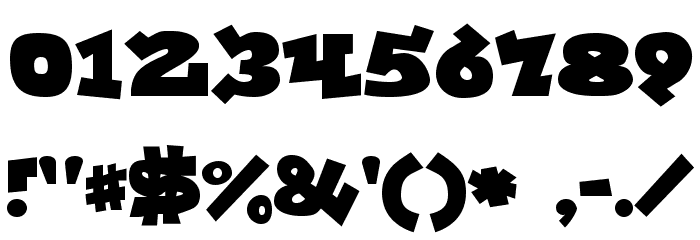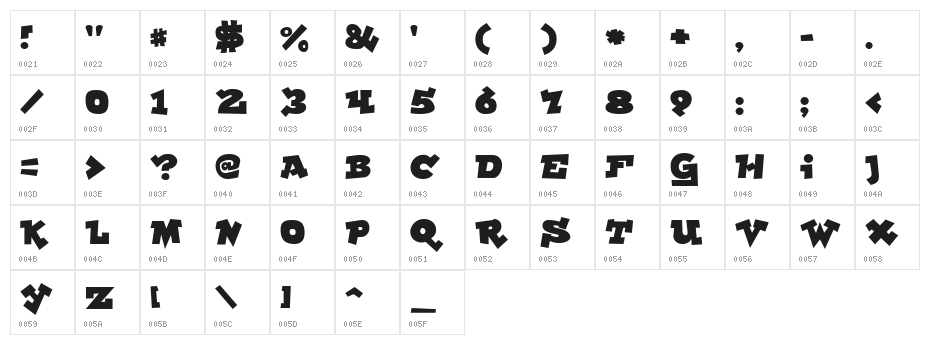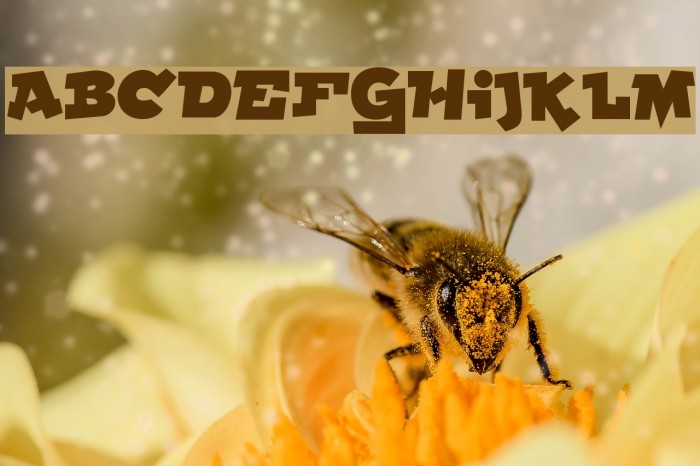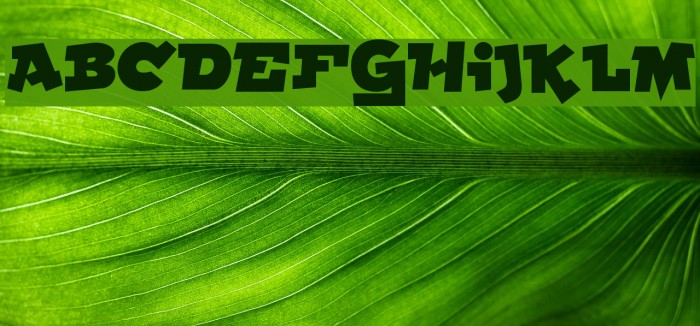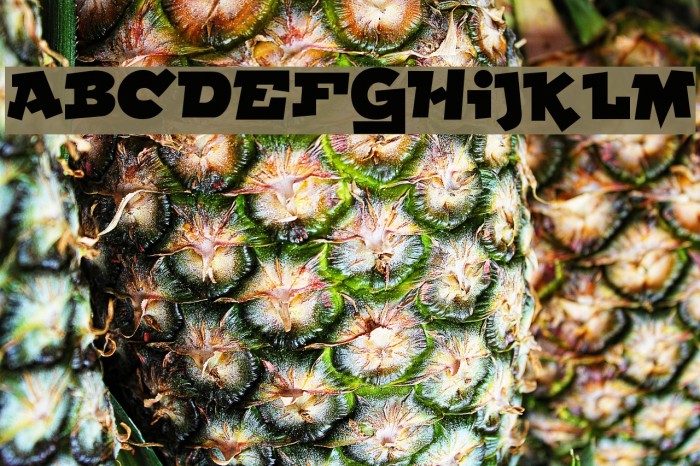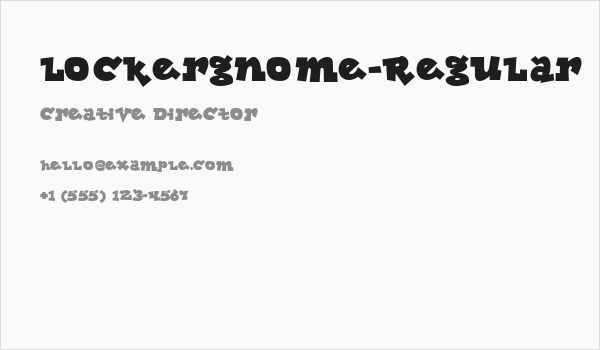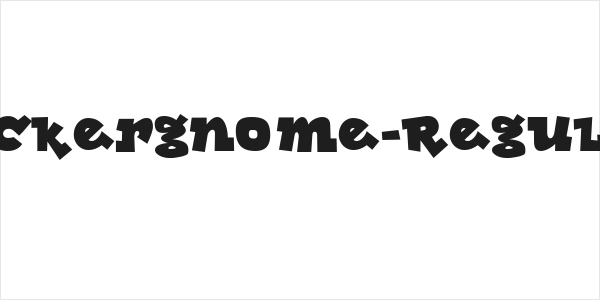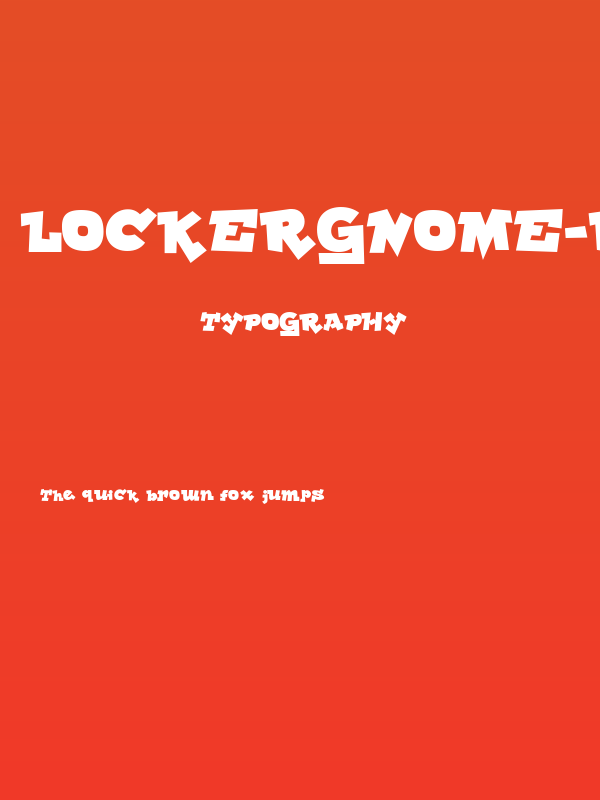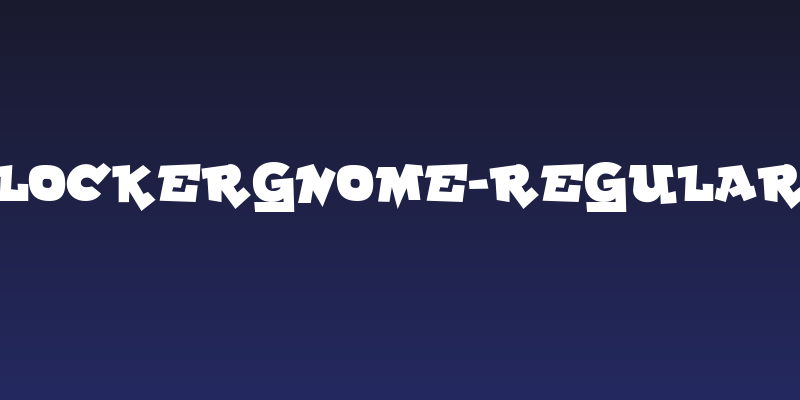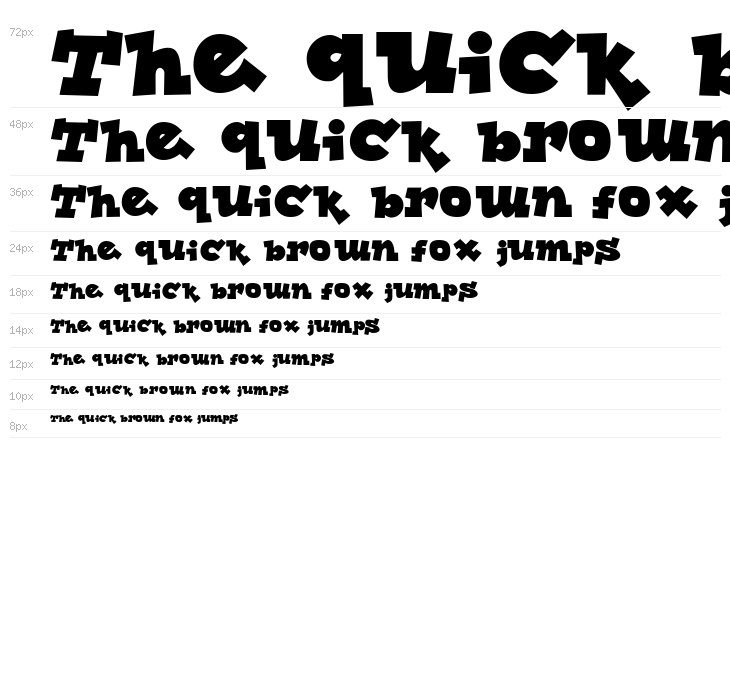
Lockergnome-Regular Font
Lockergnome-Regular Description
This font features a bold and playful design with exaggerated, angular shapes that give it a lively and energetic appearance. The uppercase letters are particularly striking, with sharp edges and a slightly irregular form that adds a sense of movement. The lowercase letters maintain this dynamic style, ensuring consistency across the typeface. Numbers and special characters are equally bold, making them stand out effectively. The overall look is reminiscent of graffiti or comic book lettering, making it ideal for projects that require a fun and informal touch.
| Overall Style | Playful, Energetic, Modern |
| Proposed Projects | Ideal for comic books, children's books, posters, and playful branding projects. |